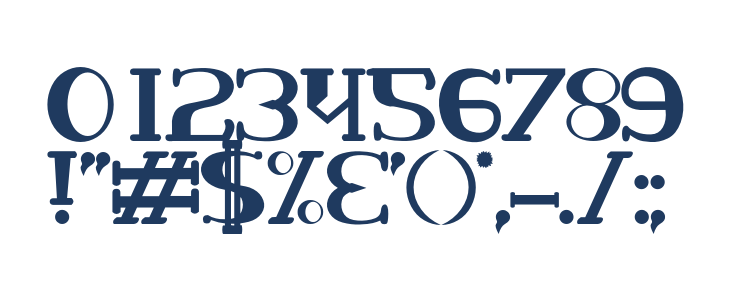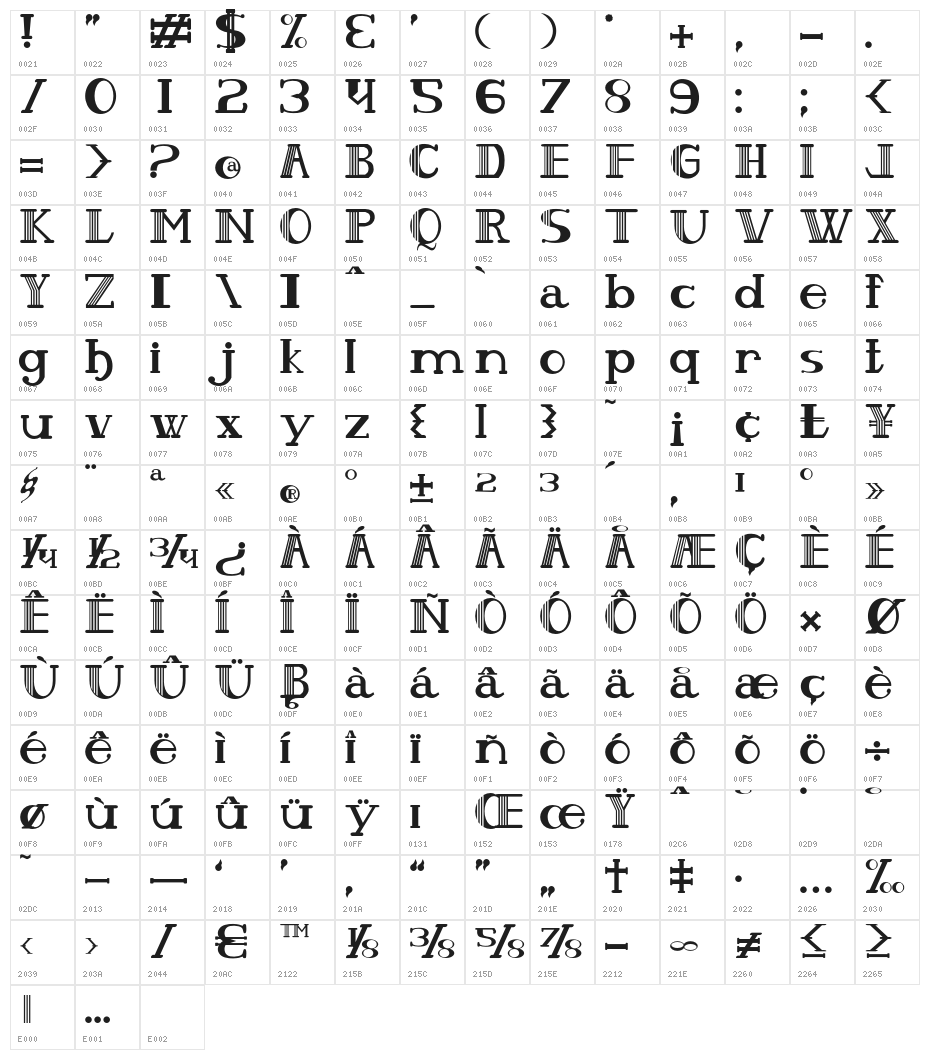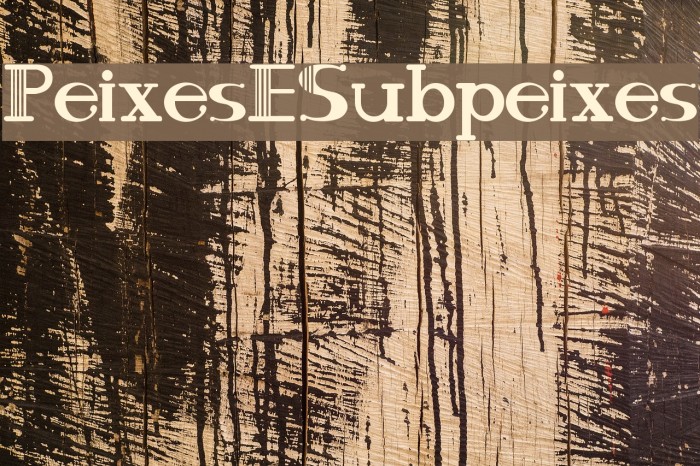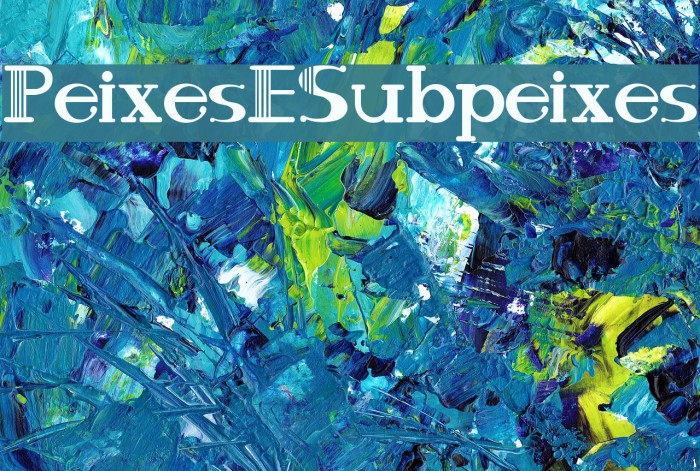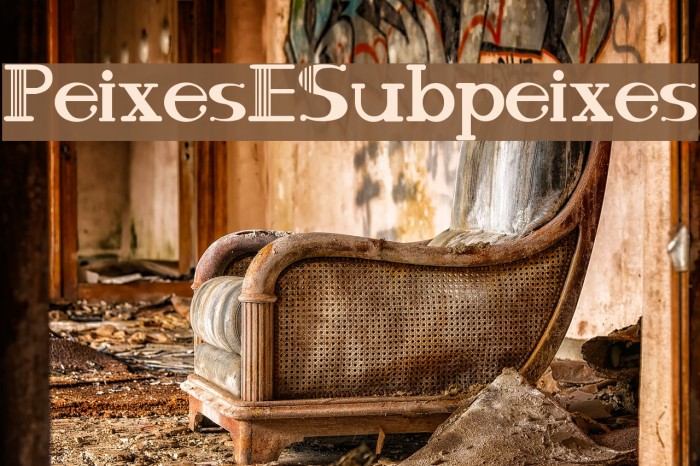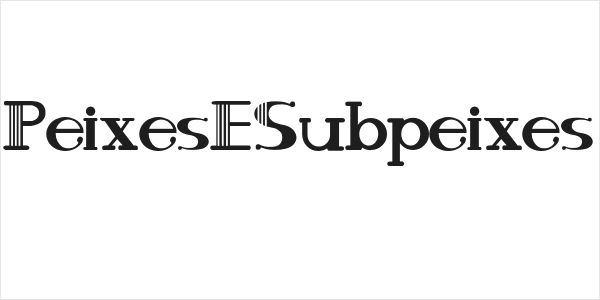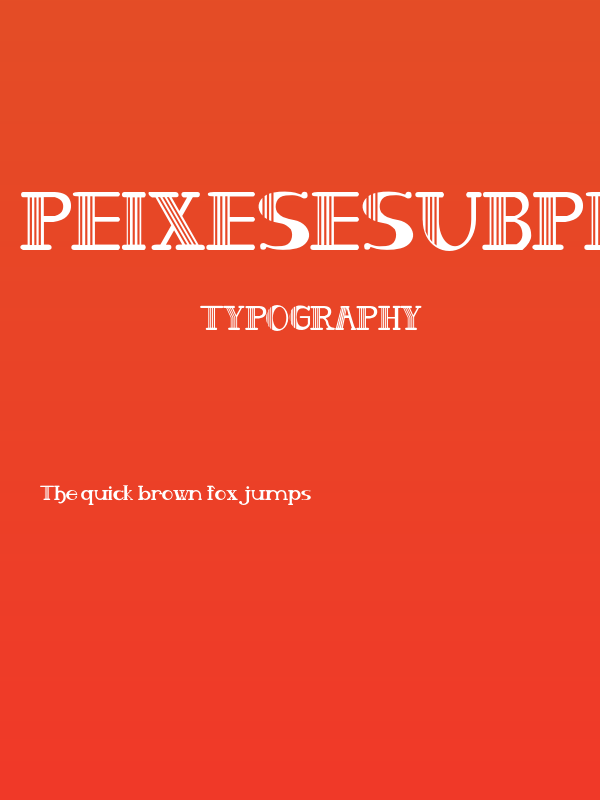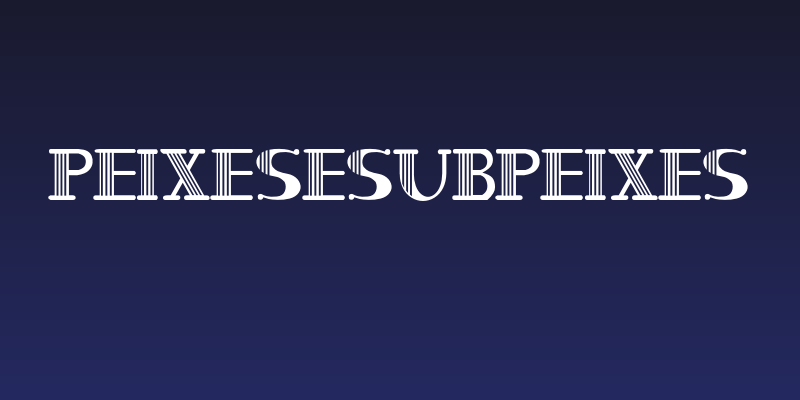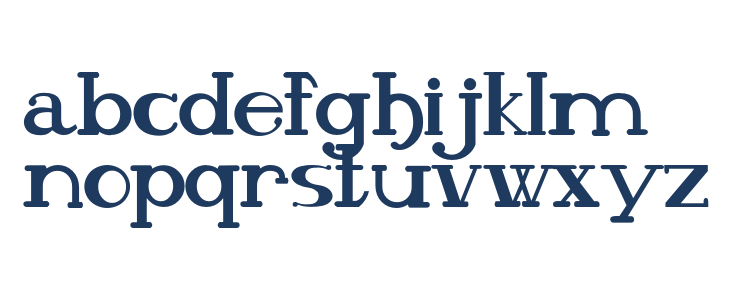
PeixesESubpeixes Font
PeixesESubpeixes Description
This font features a unique blend of modern and vintage elements, characterized by its bold and decorative style. The uppercase letters have a distinct striped pattern that adds a dynamic and eye-catching element, while the lowercase letters maintain a more traditional serif appearance with rounded edges. The numerals are bold and consistent with the decorative theme, providing a cohesive look across all characters. Special characters are designed with the same attention to detail, ensuring they complement the overall aesthetic. This font's combination of boldness and intricate design makes it suitable for a variety of creative applications.
| Overall Style | Modern Vintage |
| Proposed Projects | Ideal for branding, poster design, album covers, and any project requiring a striking visual impact. |